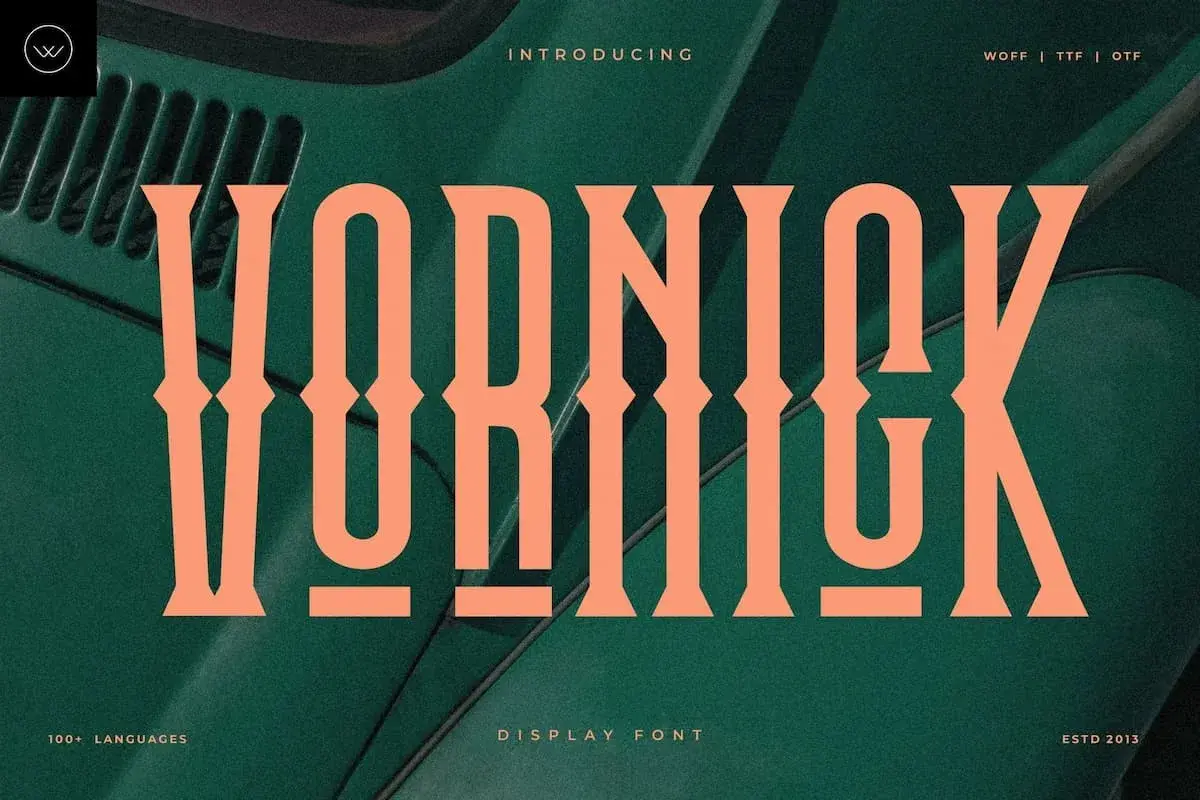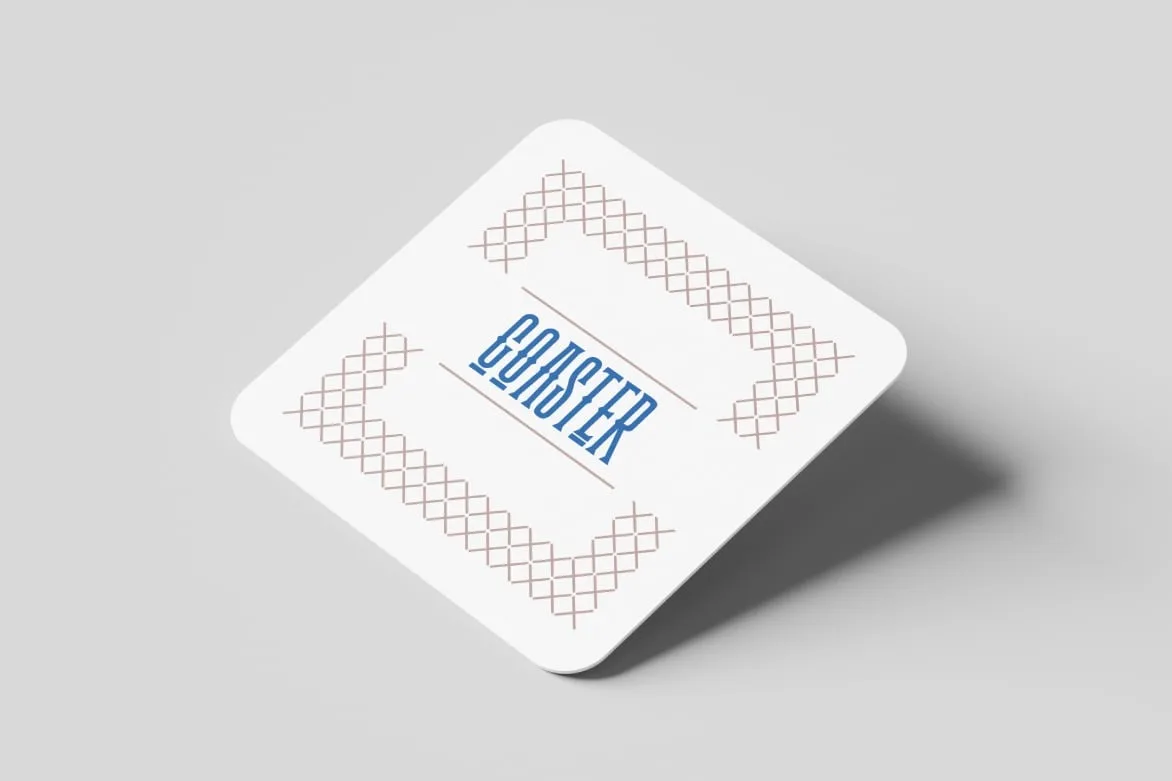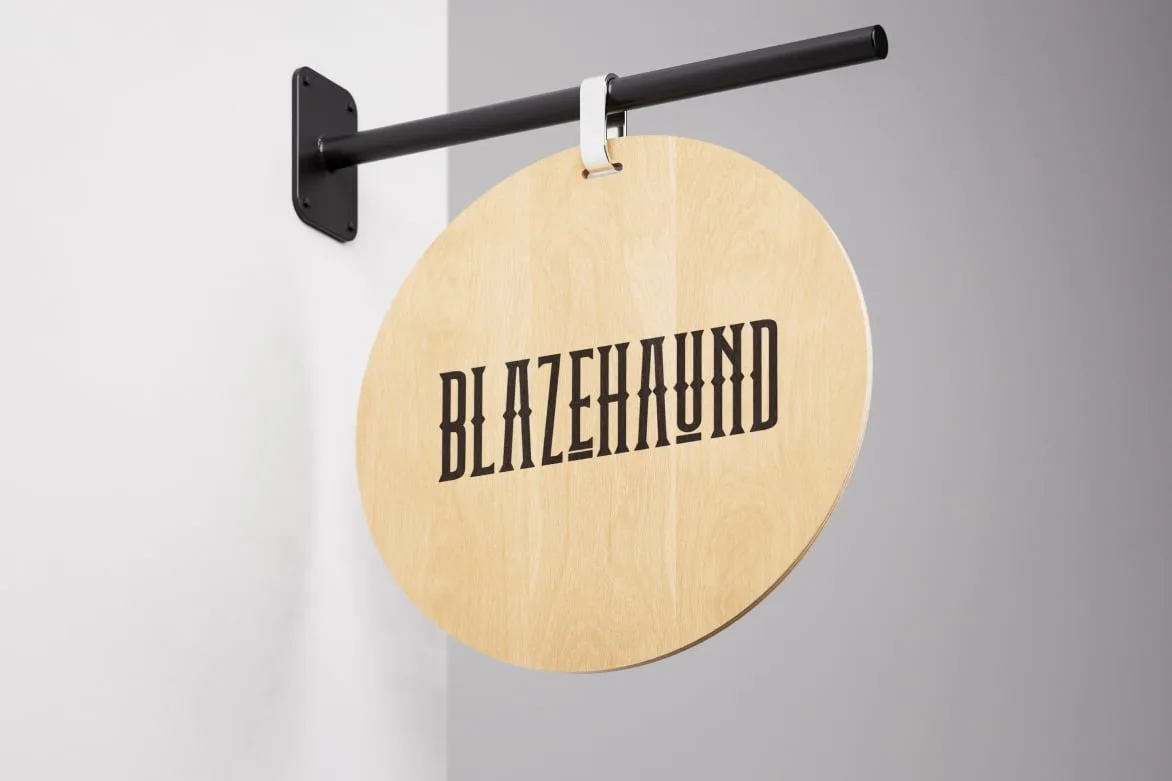
Vornick
Vornick, a sophisticated serif font, offers a unique blend of contemporary style and timeless elegance. Its uppercase design is meticulously crafted to provide a distinctive character that resonates with modern branding initiatives. The carefully considered geometry and kerning create a harmonious balance, ensuring clarity and readability across diverse applications.
This font excels in various use cases, particularly in branding and social media. It is an excellent choice for logofonts, where its stylish appearance can elevate brand identity. Vornick is particularly suited for seasonal marketing materials, including autumn-themed campaigns and Halloween promotions, where its decorative flair can enhance visual storytelling. Its versatility also makes it a strong candidate for invitations, adding an elegant touch to special occasions.
Designed with the Latin language in mind, Vornick supports a wide range of typographic needs, making it an adaptable choice for both digital and print media. Whether deployed in web UI elements, editorial layouts, or stylish packaging, this font's distinctive features promise to leave a lasting impression. Vornick stands out in the serif category for its ability to seamlessly blend contemporary aesthetics with traditional charm, ensuring it meets the needs of discerning designers.